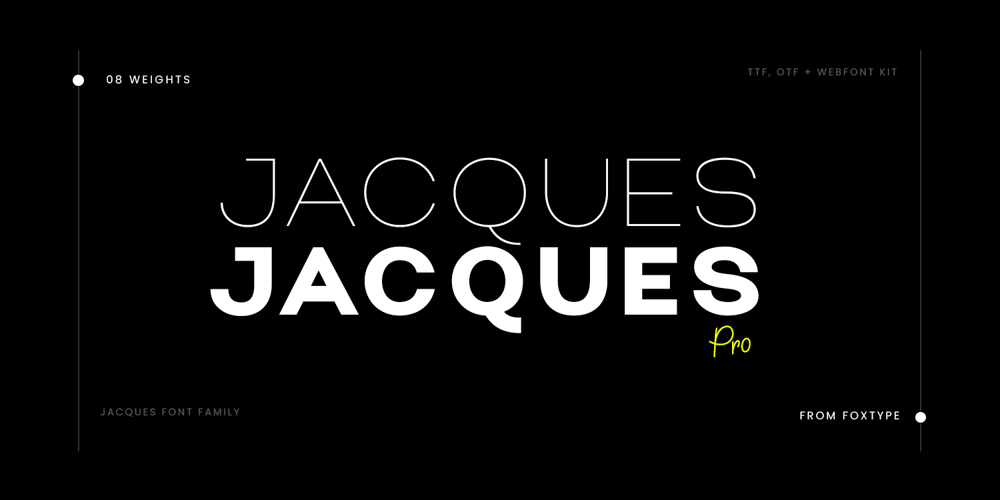
Jacques Pro Font Family was designed by Evin Tony and published by FoxType. Jacques Pro contains 8 styles and family package options. Jacques Pro Display is a Brand New Elegant Typeface with a powerful font family. It has a dependable and uncompromising style, with controlled letterforms and modern touches. It looks amazing in logos, magazines, and movies. Mackenzie Font would be perfect for branding, headlines, Captions, paragraphs, and posters. The various weights allow you to experiment with a wide range of applications. It’s created to make an impression without sacrificing its beauty and readability. It’s shown a clean, minimalist, warmth, quirky, yet still purposed to be versatileThe Typeface includes Eight Weights – Thin, ExtraLight, Light, Regular, Medium, SemiBold, Bold and ExtraBold Numerals and extended punctuation (200+ Glyphs). Expert kerning and quality crafting. Thank you for taking the time to look into the font.